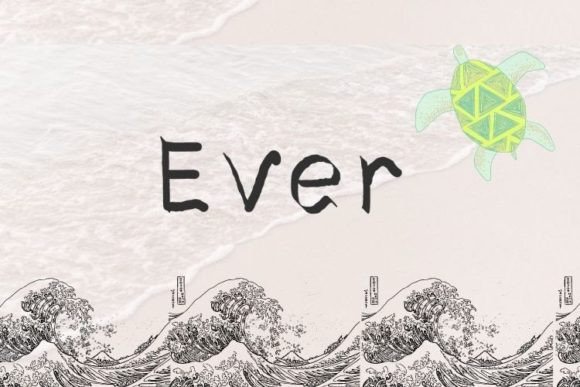
Discover the Charm of Ever Font: A Fun and Simple Handwritten Delight
Are you on the hunt for a font that adds a dash of whimsy and playfulness to your designs? Look no further than Ever Font, a delightful handwritten font that’s as versatile as it is charming. With its incredibly simple and fun design, Ever Font is the perfect addition to any project that needs a cute and childish touch.
The Versatility of Ever Font
One of the standout features of Ever Font is its versatility. Whether you’re working on a graphic design project, crafting a digital scrapbook, or creating a social media post, Ever Font fits seamlessly into a wide range of designs. Its adaptability makes it an excellent choice for designers and crafters who want to add a personal touch to their work without overpowering the overall aesthetic.
Ever Font’s design is carefully crafted to be both elegant and approachable. Its handwritten style gives it a friendly, approachable feel that’s perfect for projects that require a more personal touch. At the same time, its simplicity ensures that it doesn’t overpower other design elements, making it an excellent choice for pairing with images, graphics, and other fonts.
Adding a Cute and Childish Touch to Your Designs
Ever Font’s unique charm lies in its ability to add a cute and childish touch to any design. Its playful, whimsical feel makes it an excellent choice for projects aimed at a younger audience or those that require a more lighthearted approach. Whether you’re creating a children’s book, designing a nursery decoration, or crafting a fun social media post, Ever Font is sure to bring a smile to your audience’s faces.
But Ever Font’s appeal isn’t limited to projects aimed at children. Its playful charm can also add a touch of personality to more mature designs, making it an excellent choice for branding, packaging, and advertising projects that want to stand out from the crowd.
Why Designers and Crafters Love Ever Font
So, what makes Ever Font a favorite among designers and crafters? For starters, its simplicity and versatility make it an excellent choice for a wide range of projects. Additionally, its unique charm and playful feel add a touch of personality to any design, making it an excellent way to connect with your audience.
Ever Font is also incredibly easy to use, making it accessible to designers and crafters of all skill levels. Whether you’re a seasoned pro or just starting out, you can easily incorporate Ever Font into your workflow and start creating stunning designs in no time.
Tips for Using Ever Font in Your Designs
Ready to start using Ever Font in your designs? Here are a few tips to get you started:
- Pair Ever Font with bold graphics or images to create a striking contrast.
- Use Ever Font to add a playful touch to your branding or packaging designs.
- Don’t be afraid to mix and match Ever Font with other fonts to create a unique look.
Ever Font is a fun and simple handwritten font that’s sure to bring a touch of whimsy and playfulness to your designs. With its versatility, charm, and ease of use, it’s an excellent choice for designers and crafters looking to add a personal touch to their work. Whether you’re working on a graphic design project, crafting a digital scrapbook, or creating a social media post, Ever Font is the perfect addition to any project that needs a cute and childish touch.